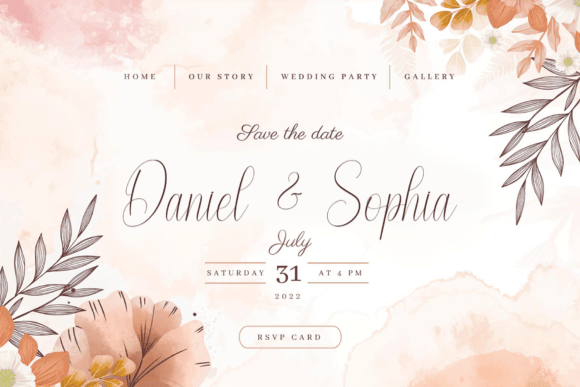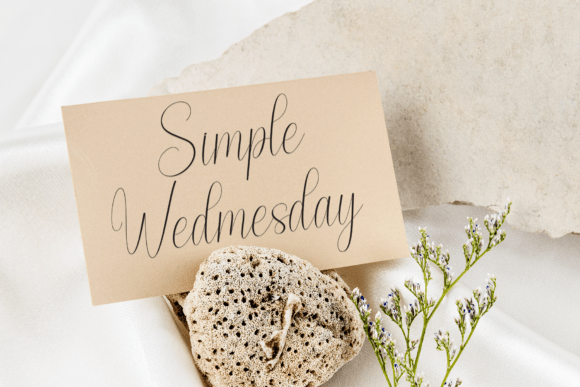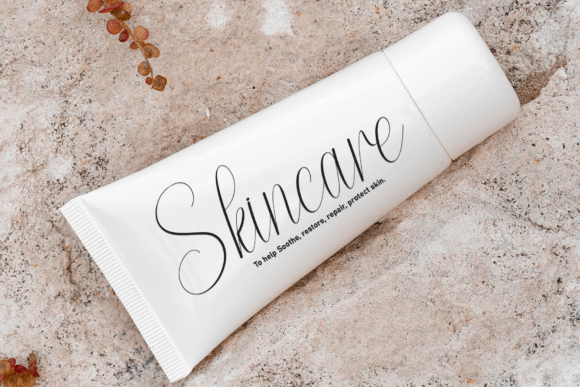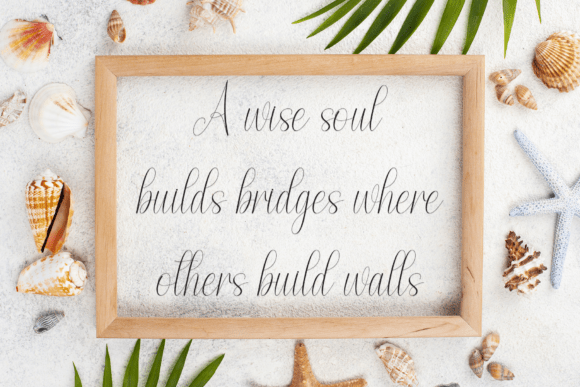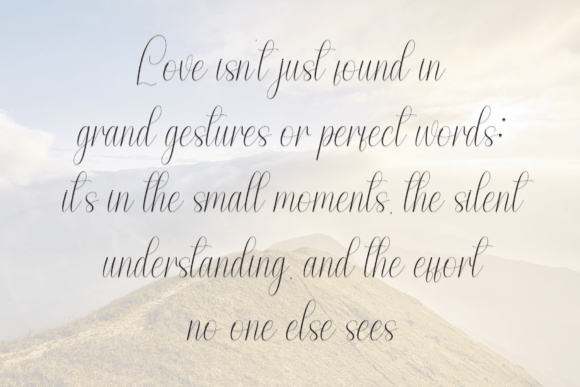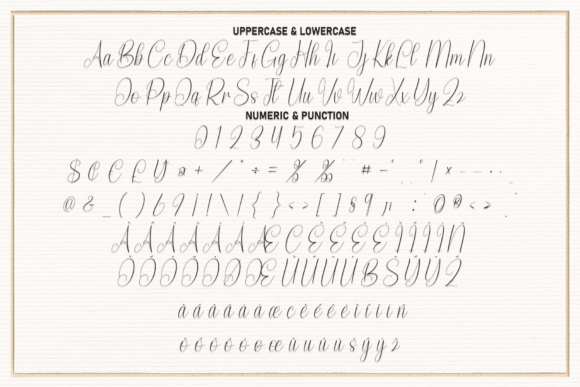
Introducing the Background Signature Font: A Delightful Handwritten Display Font
Step into a world of inky charm with our delightful, handwritten display font – an epitome of sweetness and friendliness. Infusing an element of fun and warmth, this font is a perfect choice to imbue your wedding invitations or greeting cards with a playful touch. Not just limited to stationery, this versatile font breathes life into any design that yearns for a hint of innocent joy.
In today’s digital age, handwritten fonts have become a popular choice for designers and crafters looking to add a personal touch to their creations. Our Background Signature Font is a beautiful example of a handwritten display font that exudes warmth and friendliness. With its delicate strokes and whimsical flair, this font is sure to capture the hearts of anyone who lays eyes on it.
Wedding invitations and greeting cards are special occasions that call for a unique and personalized touch. Our Background Signature Font is the perfect choice for these types of designs, as it adds a playful and whimsical touch that’s sure to delight the recipient. Whether you’re a designer or a crafter, this font is easy to use and can be incorporated into a variety of designs, from elegant wedding invitations to playful birthday cards.
Beyond Stationery: Versatility at Its Finest
While our Background Signature Font is perfect for stationery, its versatility extends far beyond. This font can be used in a variety of designs, from branding and packaging to digital graphics and web design. Whether you’re looking to add a touch of whimsy to a children’s book or create a playful logo for a new business, this font is sure to deliver.
Adding a Touch of Handwritten Nostalgia
In an age where digital communication dominates, handwritten fonts like our Background Signature Font offer a refreshing change of pace. This font brings back memories of handwritten letters and notes, infusing a sense of nostalgia and warmth into any design. By incorporating this font into your creations, you can turn every piece of written communication into a whimsical experience that’s sure to delight.
Adorable Novelty and Innocent Joy
Our Background Signature Font is not just a font – it’s an experience. With its adorable novelty and innocent joy, this font is sure to bring a smile to anyone’s face. Whether you’re a designer or a crafter, this font is the perfect choice for anyone looking to add a touch of playfulness and whimsy to their creations.
Our Background Signature Font is a delightful handwritten display font that’s sure to bring a touch of inky charm to any design. With its sweetness, friendliness, and playful touch, this font is perfect for designers and crafters looking to add a unique and personalized element to their creations. So why wait? Download our Background Signature Font today and turn every piece of written communication into a whimsical experience!